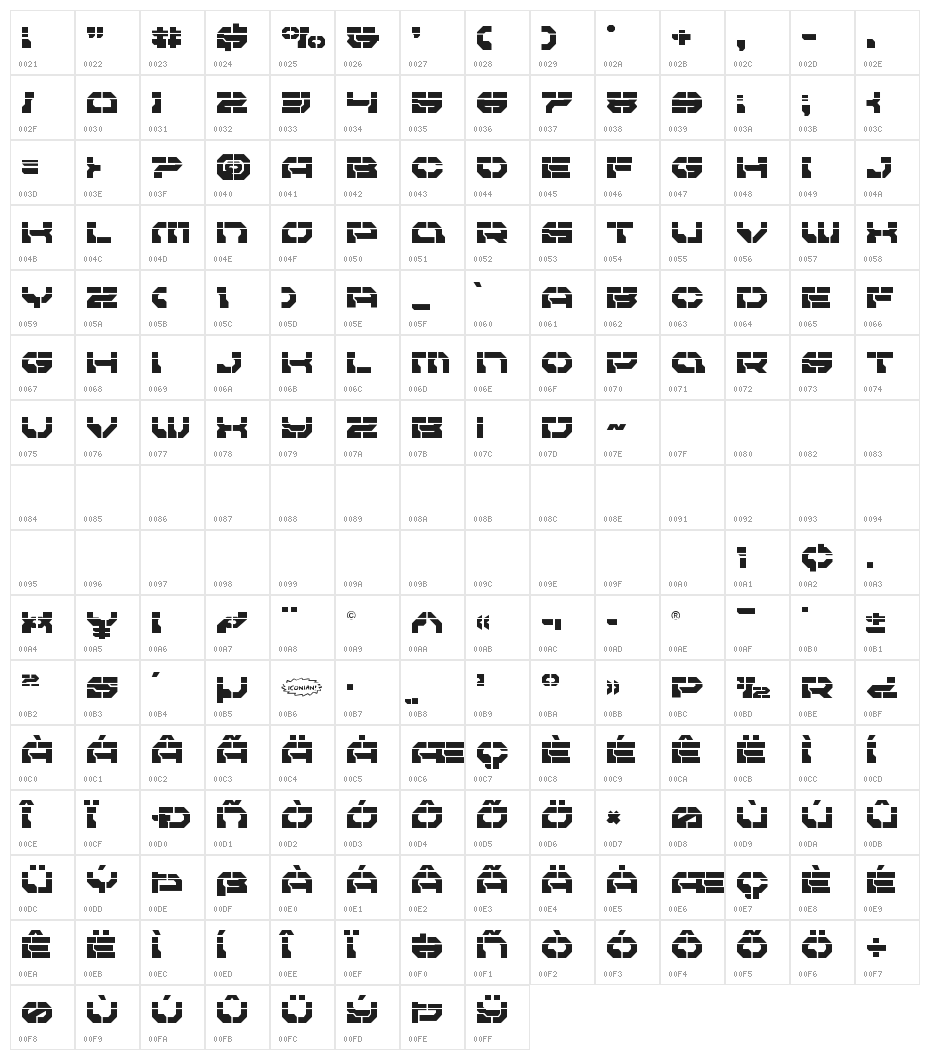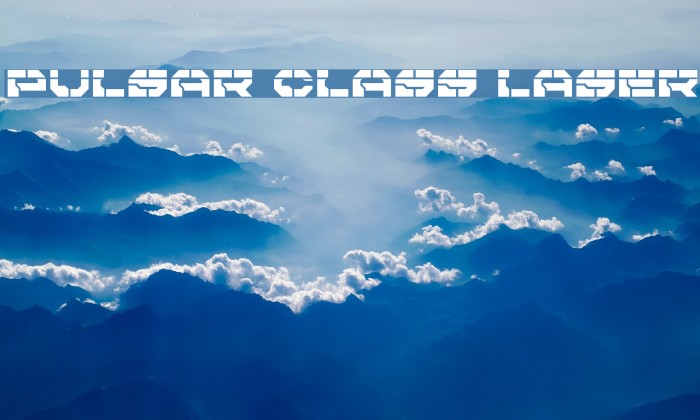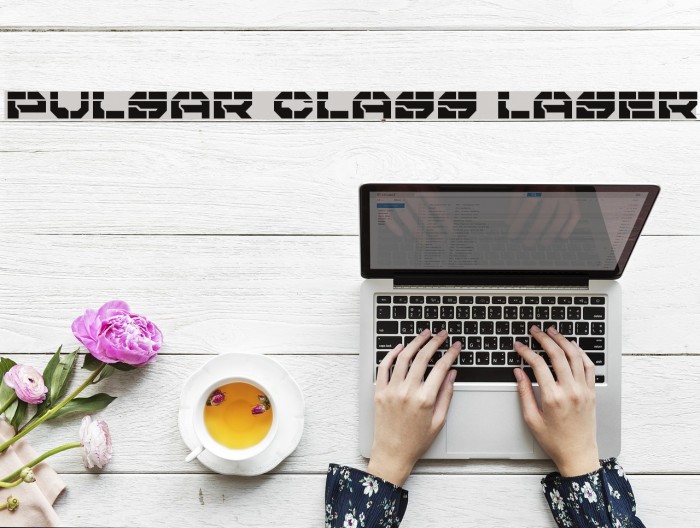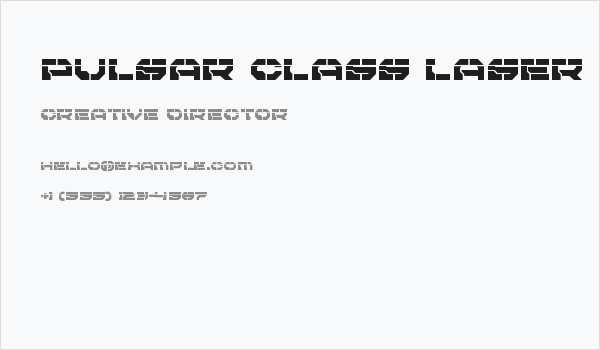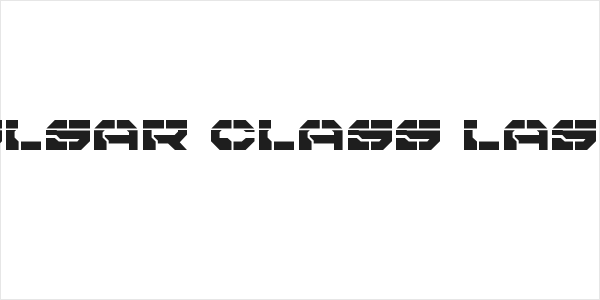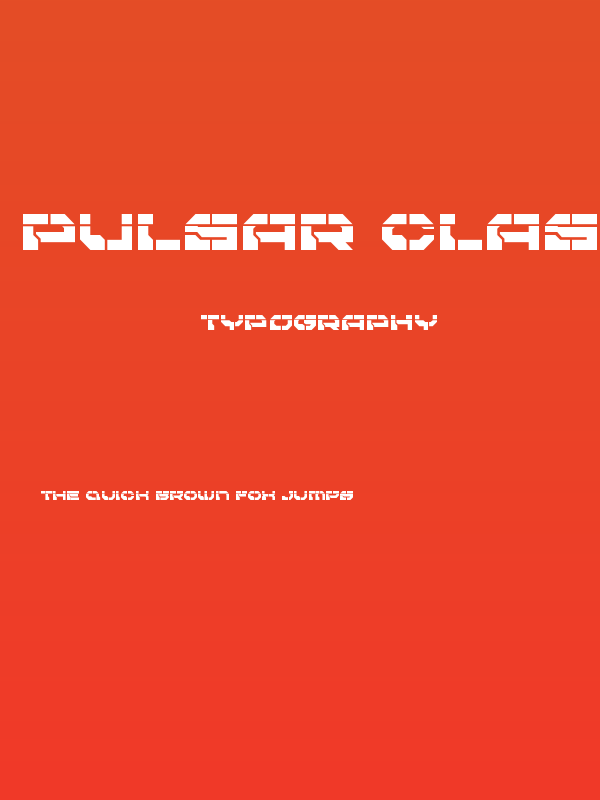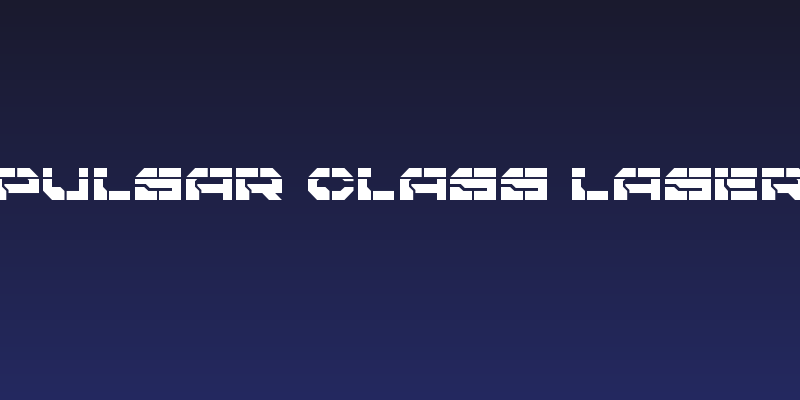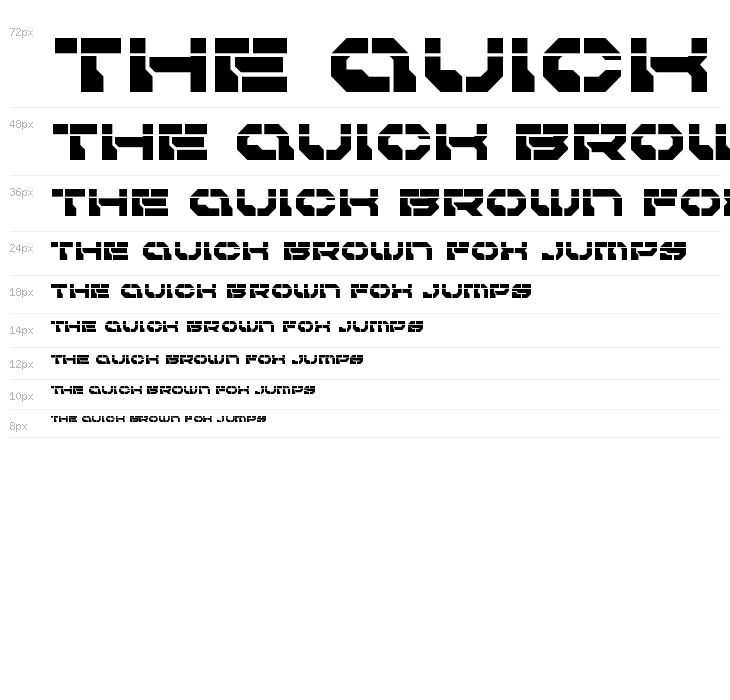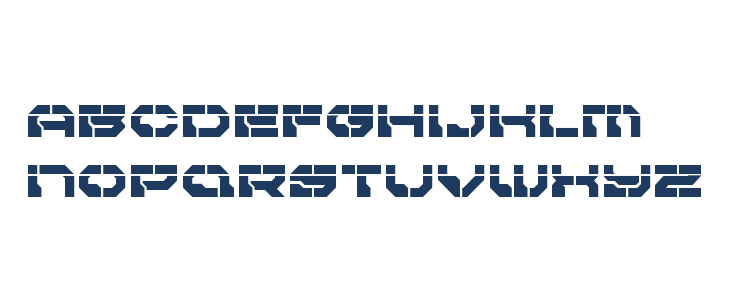
Pulsar Class Laser Font
Pulsar Class Laser Description
This font features a futuristic and geometric design, characterized by its bold, angular shapes and sharp edges. The letters are constructed with a stencil-like appearance, giving it a high-tech and industrial feel. The uppercase and lowercase letters maintain a consistent style, with each character formed by a series of straight lines and angles, creating a cohesive and modern look. The numbers and special characters follow the same design principles, ensuring uniformity across the entire character set. This font's unique style makes it ideal for projects that require a cutting-edge and contemporary aesthetic.
| Proposed Projects | Ideal for sci-fi themed designs, technology branding, video game titles, and futuristic posters. |